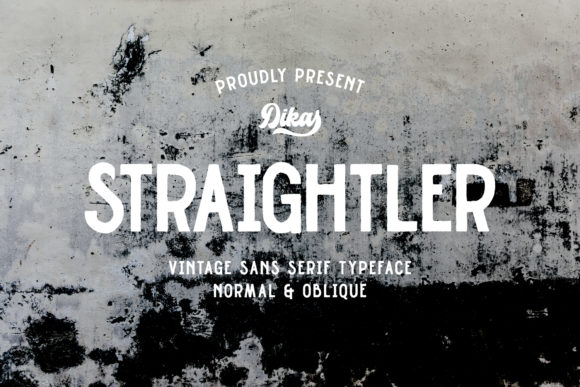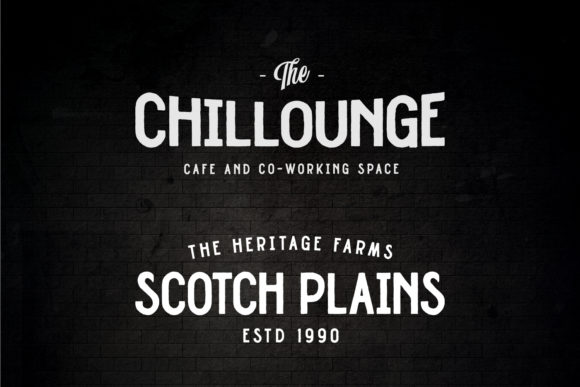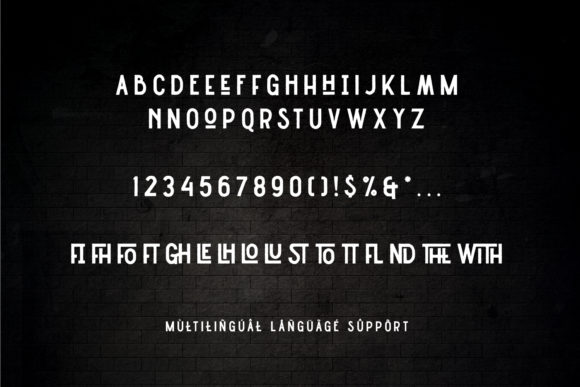
HomePersonal Use FreeStraighler Personal Use Free Straighler FacebookTwitterPinterestWhatsApp 1 of 3 About Straighler Font Straighler is a Vintage display typeface. It has rough characters and many ligatures. It’s suitable to create vintage design themes with this font. DOWNLOAD NOW People also explored Phyton Font Sakéna Font Anolia Mathew Font Bathiella Font Delgian Font Queynston Font Blueberry Cheesecake Font Clara Signature Font Wincent Thin Font 210 0 TagsStraighler Font Previous articleGreen FarmhouseNext articleFadhista LEAVE A REPLY Cancel reply Comment: Please enter your comment! Name:* Please enter your name here Email:* You have entered an incorrect email address! Please enter your email address here Website: Save my name, email, and website in this browser for the next time I comment. Personal Use Free Hashira Mt Personal Use Free Read more about this font Angelitta Personal Use Free Read more about this font Kumadinya Personal Use Free Read more about this font Blessed Font Personal Use Free Read more about this font BLOG Free Fonts Risk: Why Free Fonts Can Be Dangerous for Designers Free Fonts Risk: Why Free Fonts Can Be Dangerous for Designers Using free fonts is a common practice in web and graphic design. However, the... To increase your work productivity, choose the most readable fonts. Best Fonts for YouTube Videos: Make Your Thumbnails Stand Out The 10 Best Handwriting Fonts to Add Personality to Your Designs